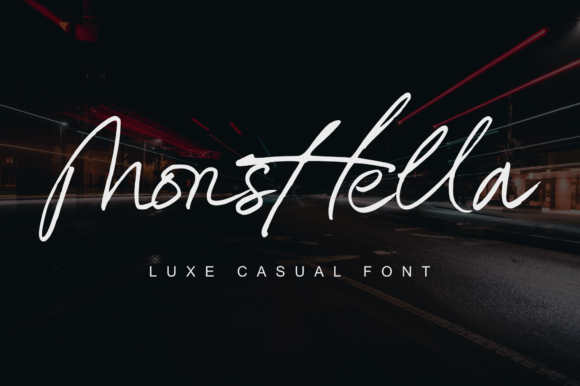
About Monsttella Font
Monsttella is a relaxed and incredibly versatile handwritten font. This font is PUA encoded which means you can access all of the glyphs and swashes with ease! It features a varying baseline, smooth lines, gorgeous glyphs and stunning alternates.
Get inspired by Monsttella and use it to create birthday invitations, greeting cards, wedding invitations and so much more, with an authentic, personal touch!